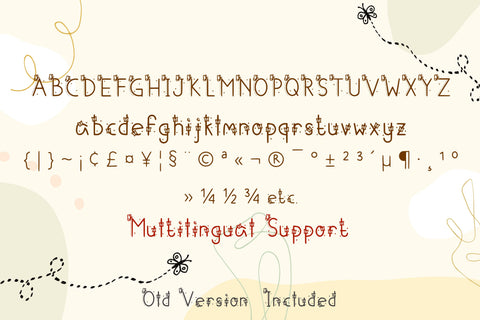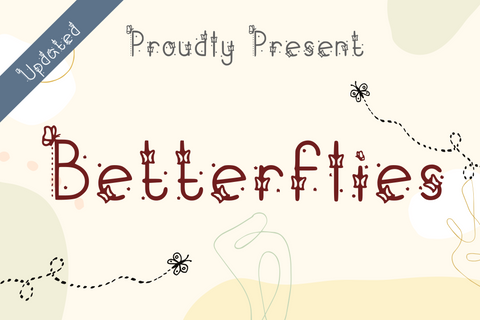
Betterflies Font
Betterflies is an incredibly cute and jolly decorative font, featuring tiny little butterflies. Have fun with this beautiful font and explore its endless variations.